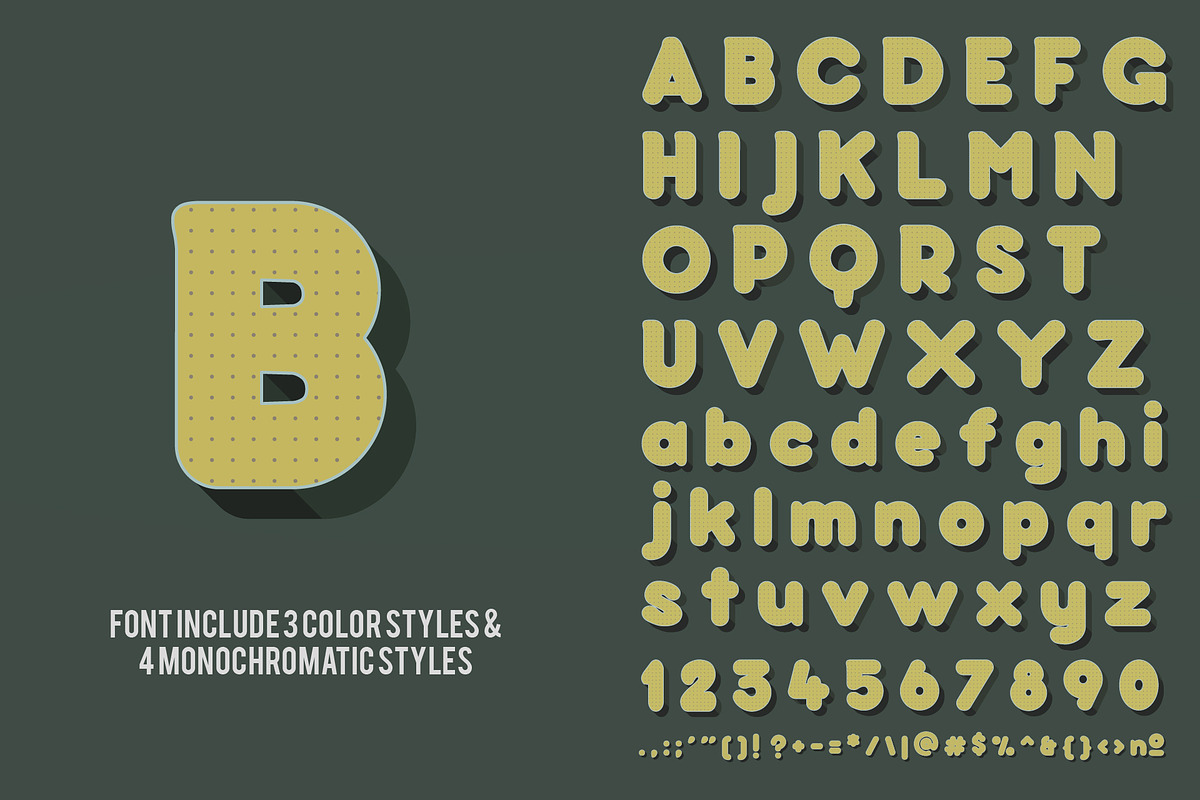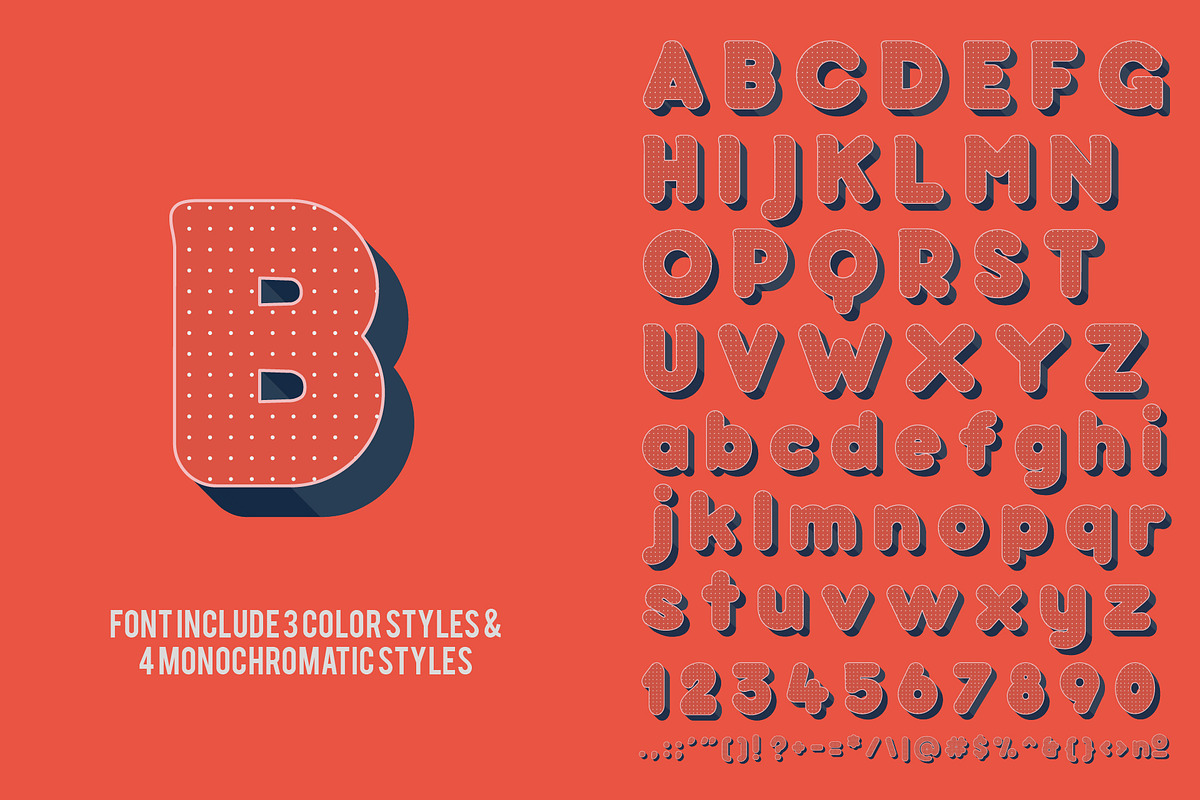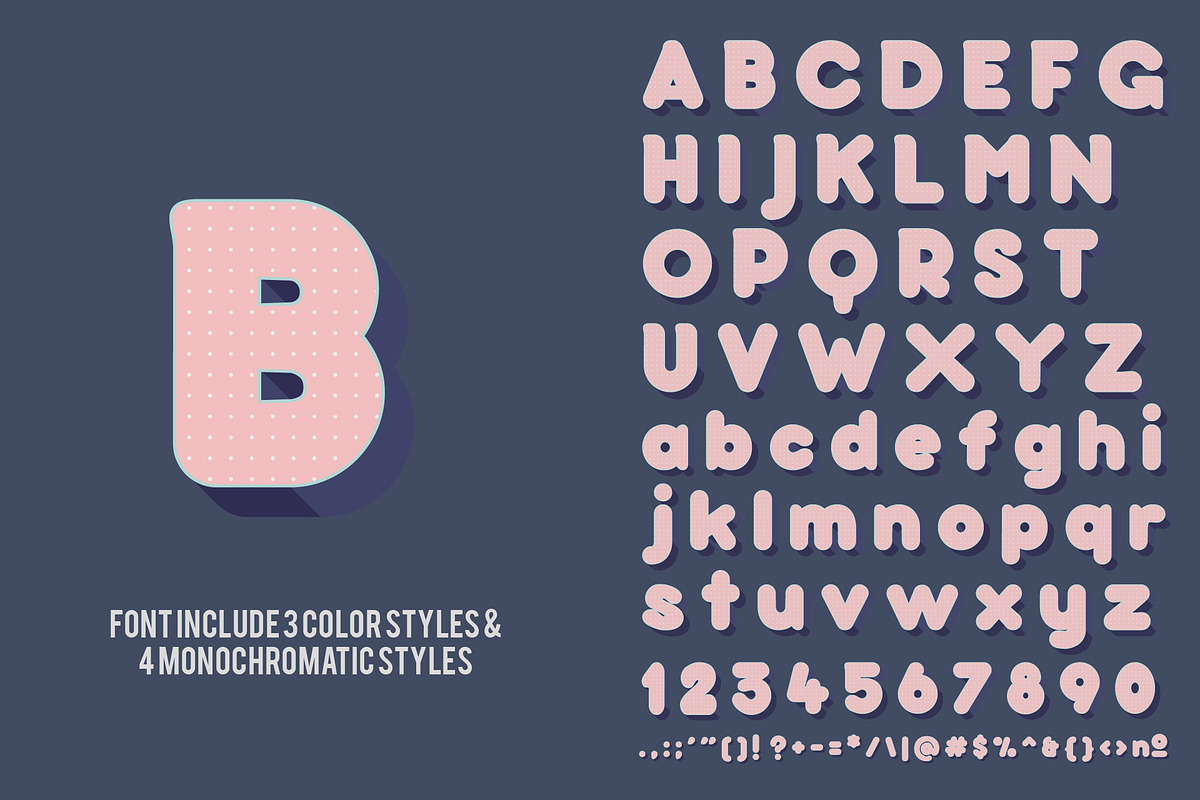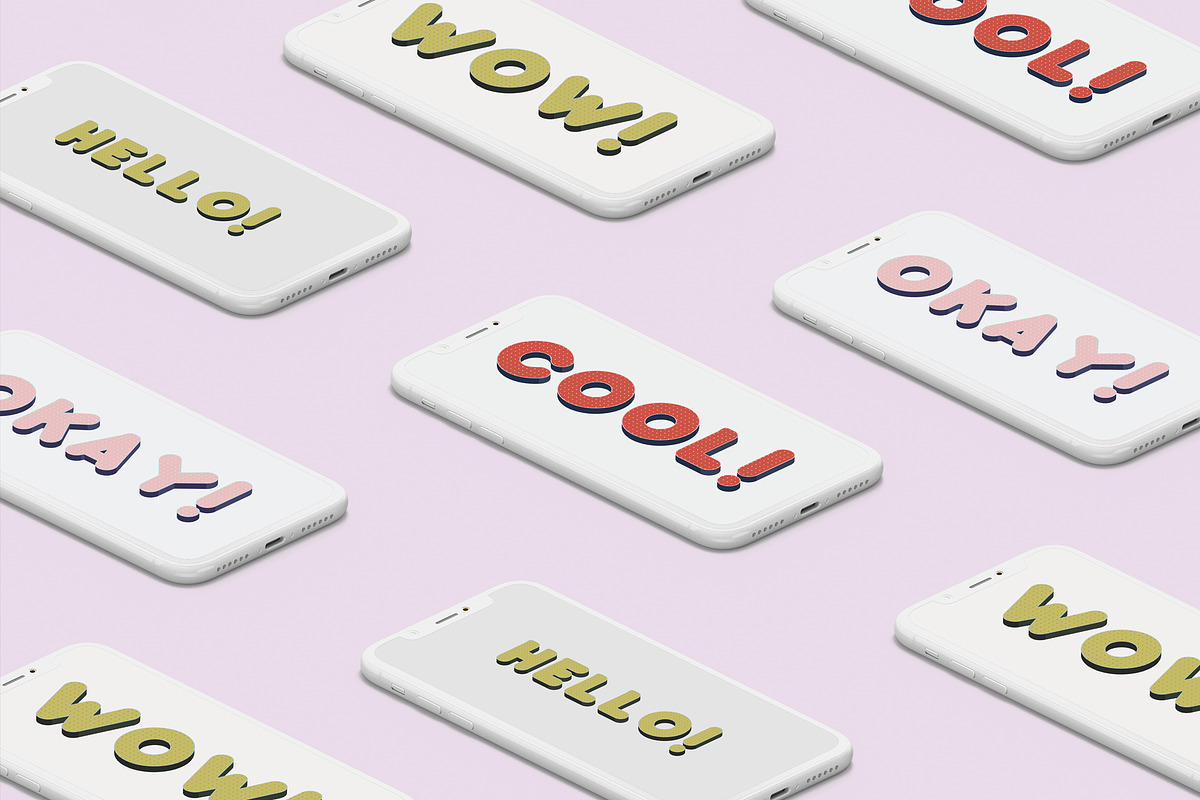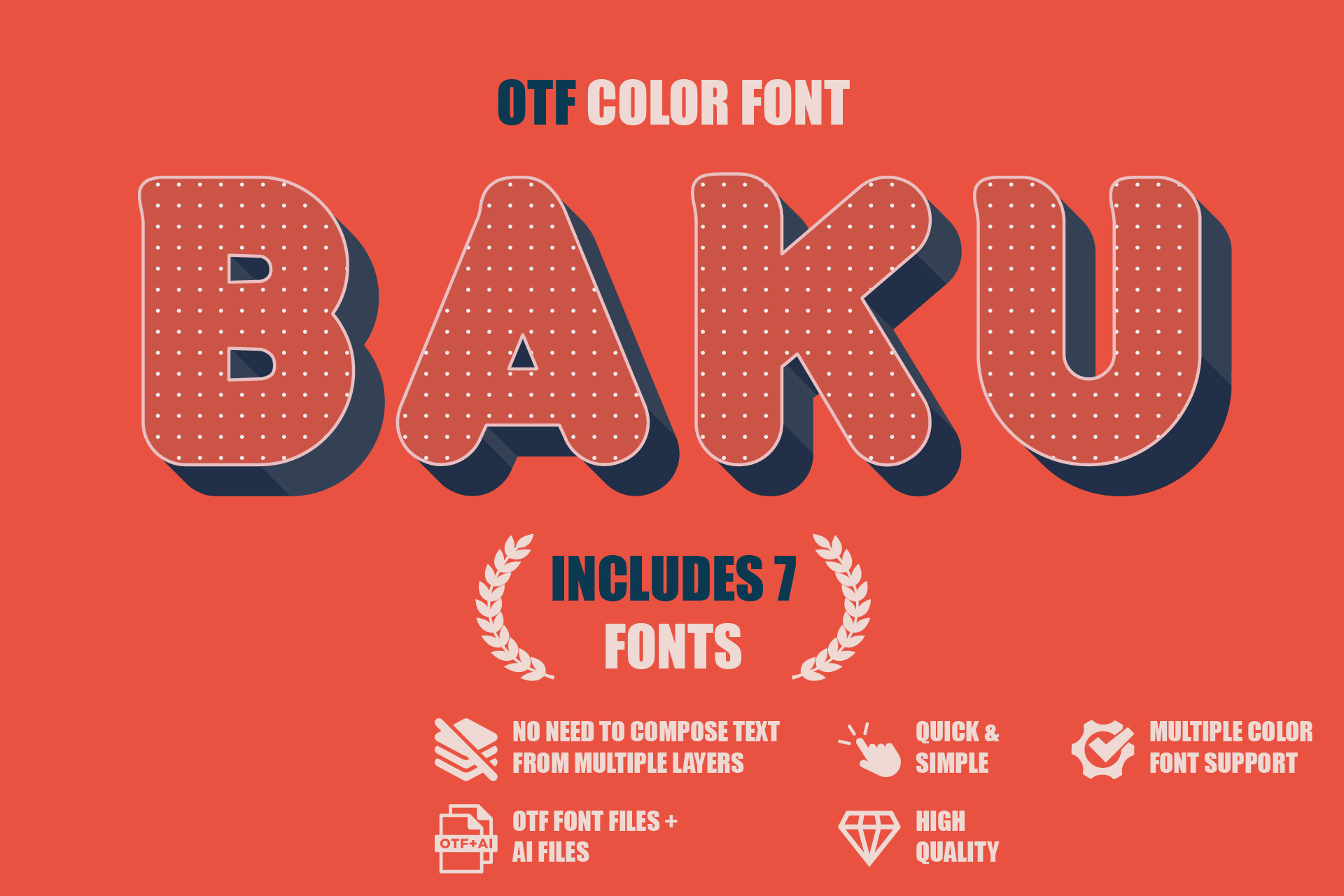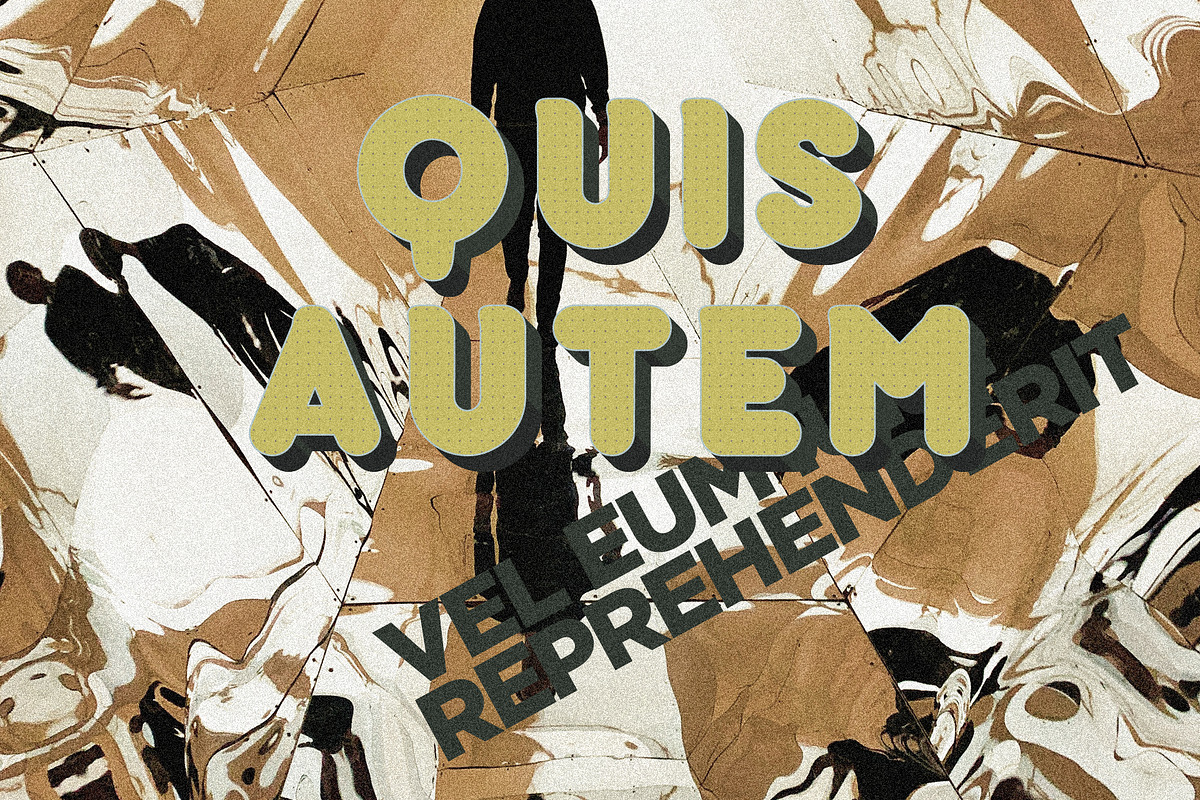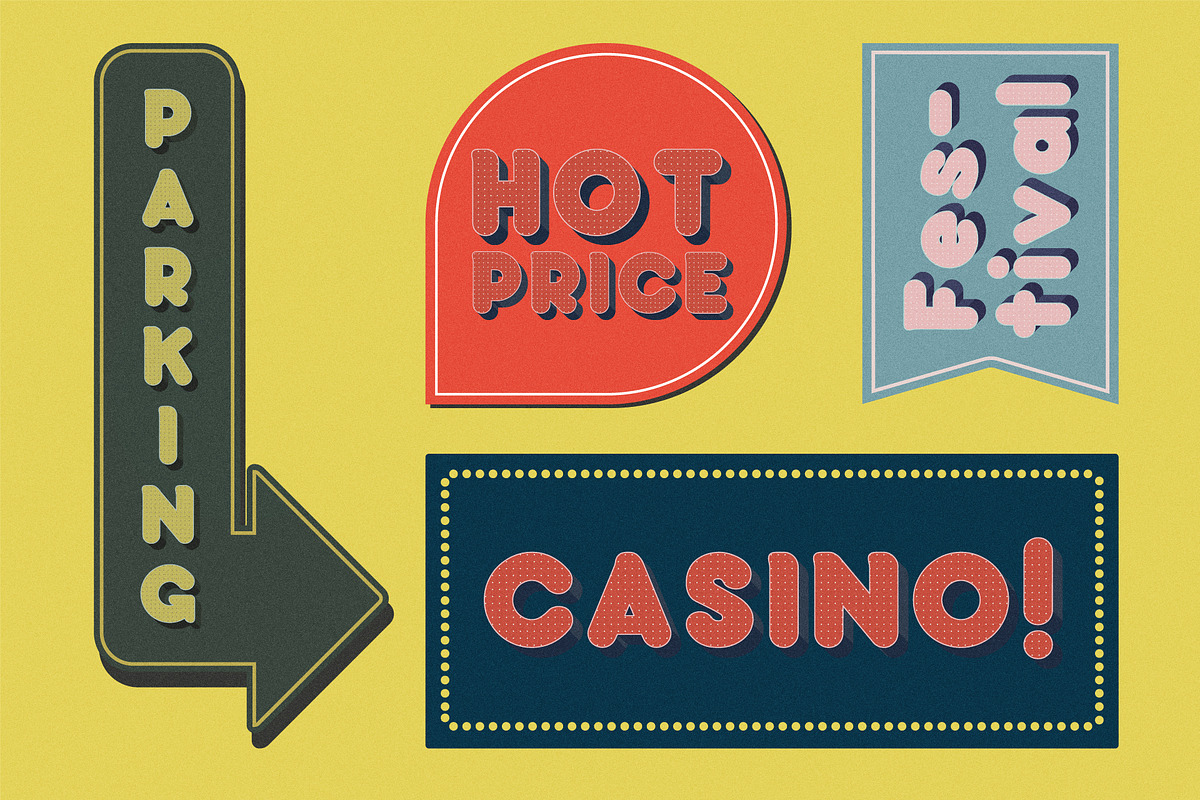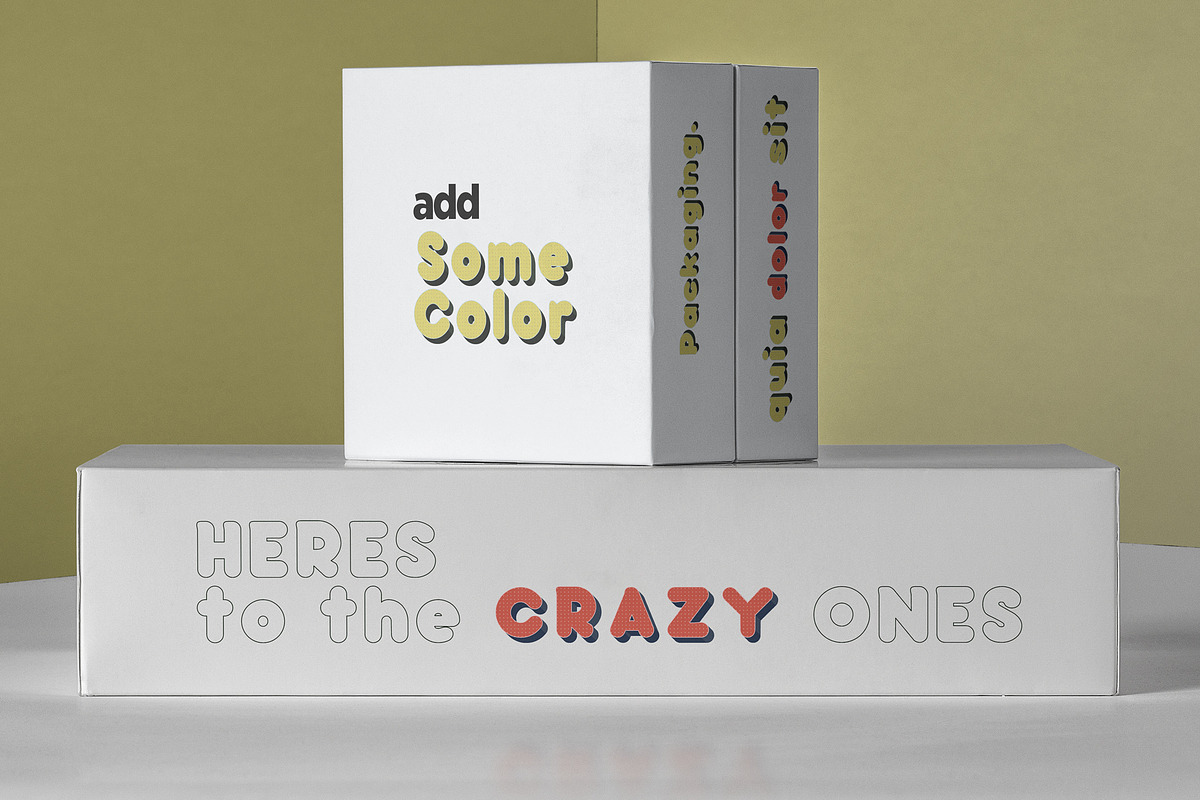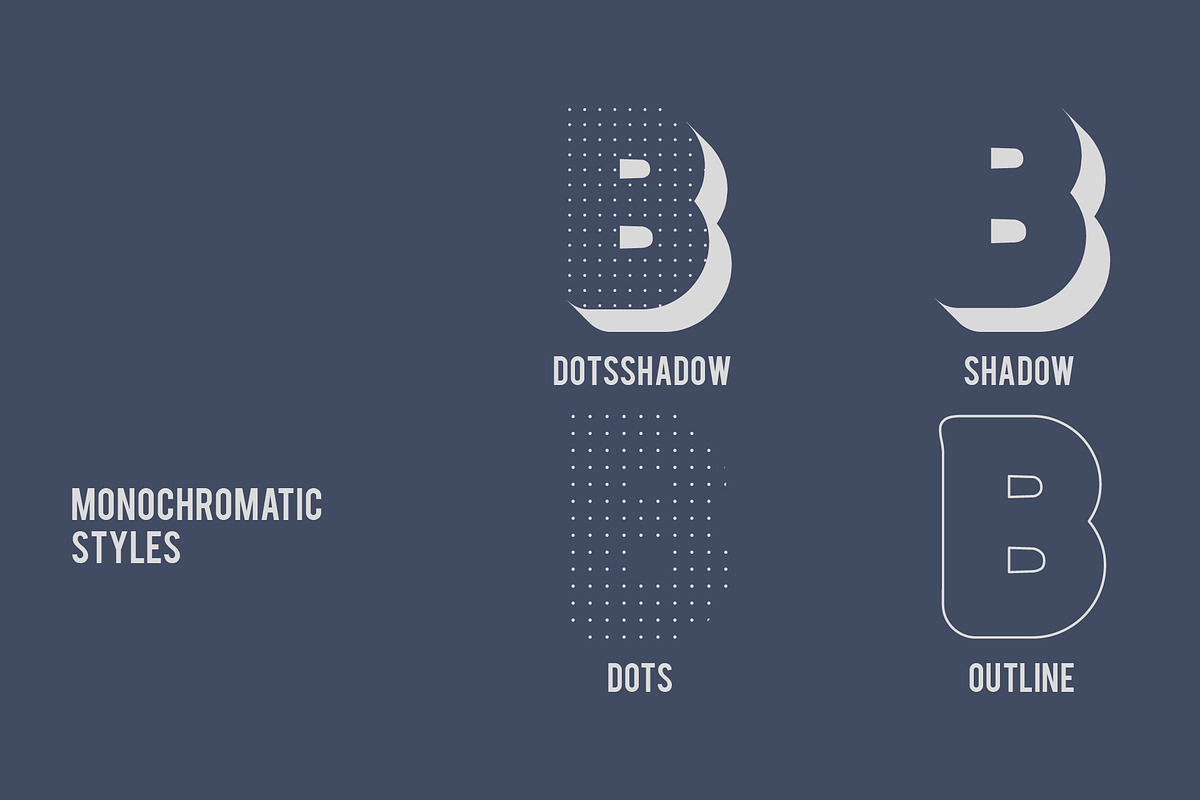
🌿 Introducing OTF color font - Baku. 👑
Sweet, delicious and incredibly charming: Fall in love with the Baku. Baku is a versatile sans serif typeface with both uppercase and lowercase letters! This font is for those who want to show something smooth and modern. Very suitable for any design purpose like magazines, packaging, branding , website header, posters, greeting cards, letterhead, and many more other creative project.
• All uppercase&lowercase display, numerals & punctuation
• Baku-Dots
• Baku-DotsShadow
• Baku-Outline
• Baku-Pink
• Baku-Red
• Baku-Shadow
• Baku-Yellow
Download this font just for the default colors, the kerning is terrible and I get the sense this font wasn't meant to be easy to use your own colors because you can see on the preview and if you try out the font yourself, you cannot choose your own colors because the shadow font, dot font and outline fonts all don't have the same spacing.